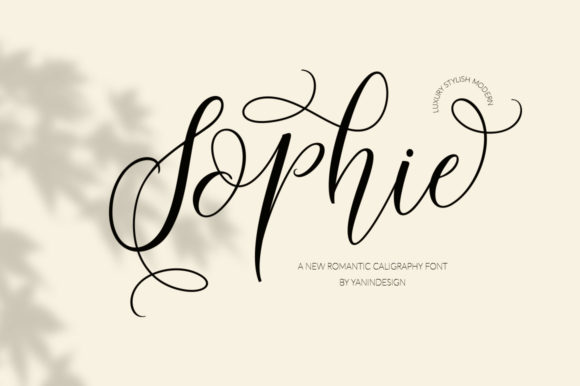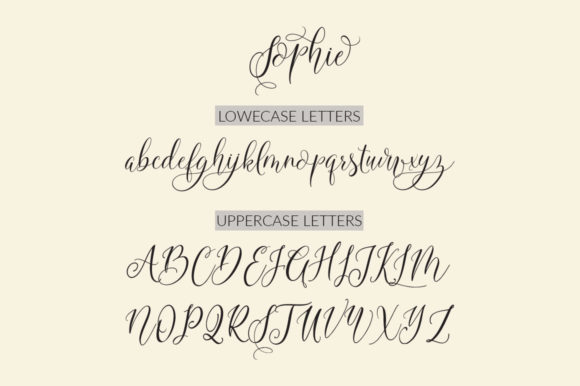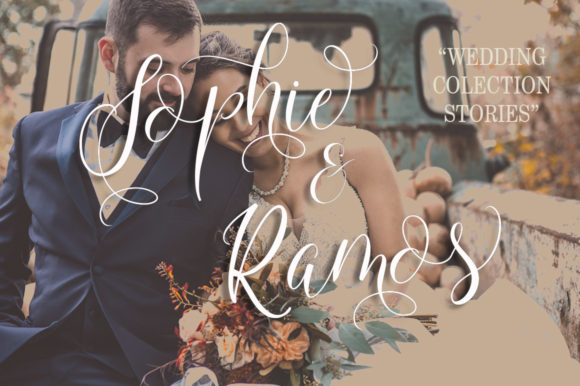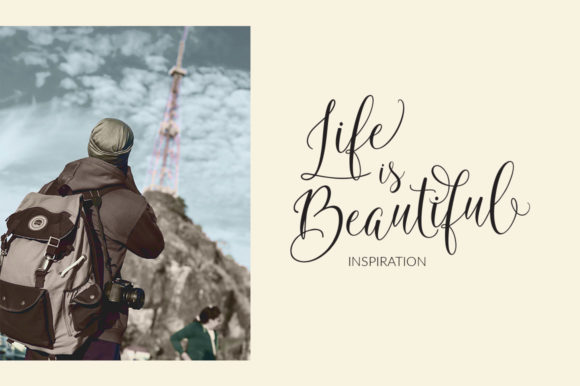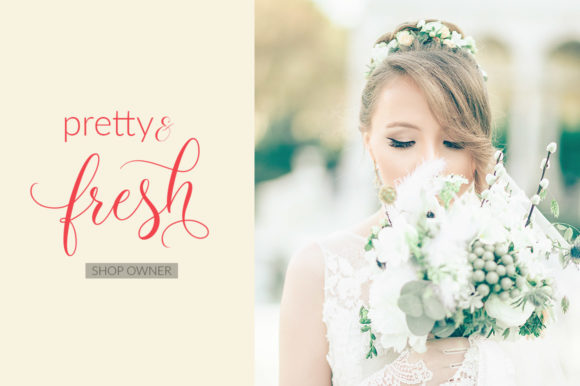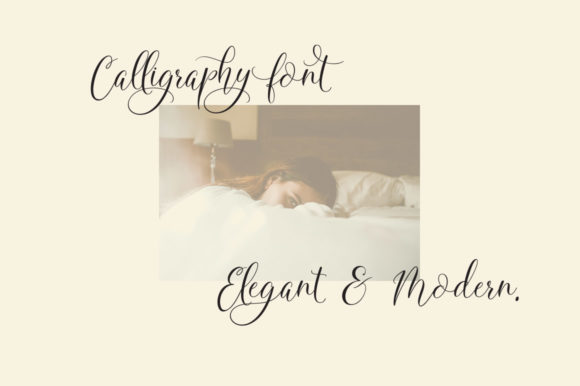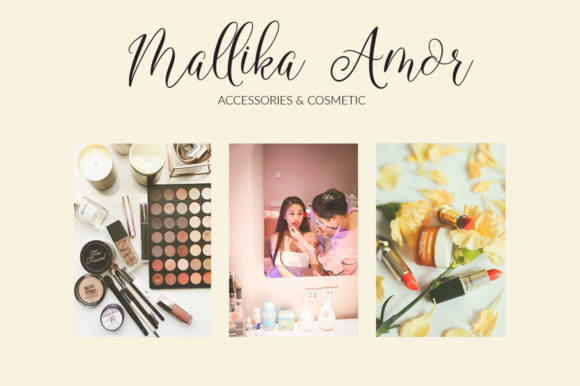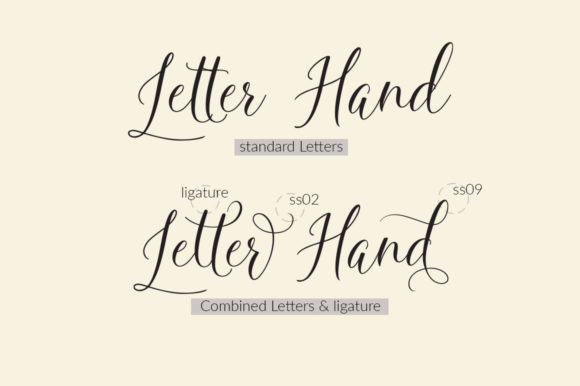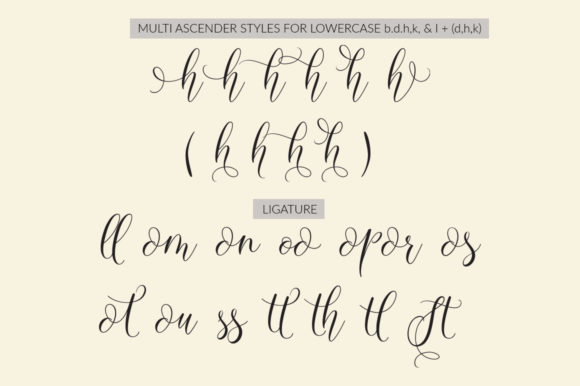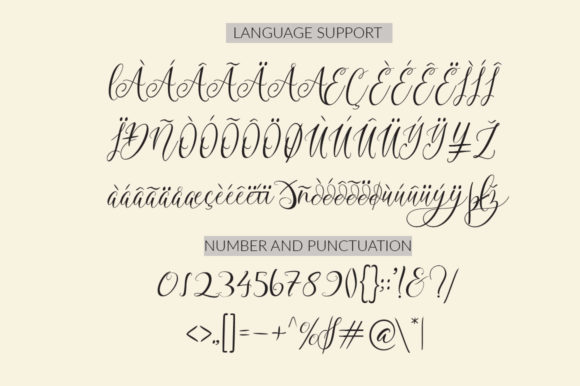
Sophie Font
About Sophie Font
Sophie is a fancy, contemporary handwritten font. In addition to its well-balanced weight distribution, it delivers an elegance which is further emphasized by the carefully adjusted alternates and ligatures!